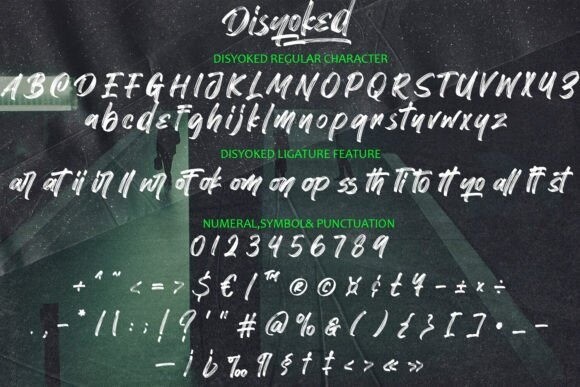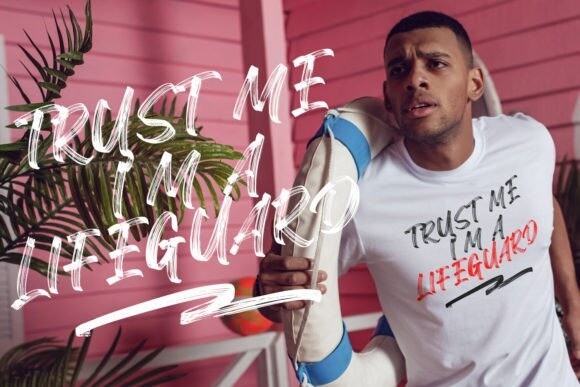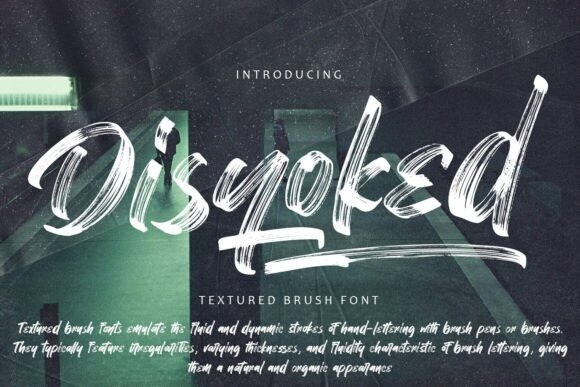
Disyoked Font
Disyoked Font – textured brush font is a non-script typeface that incorporates the rugged charm of brush strokes with textured elements. It draws inspiration from brush techniques, featuring letterforms that emulate the natural strokes of a brush or brush pen. This gives the font a dynamic and handcrafted appearance.
Disyoked includes textured elements within its letterforms, adding depth and character to the typography. These textures simulate the look of distressed or weathered brush strokes, enhancing the font’s visual interest.